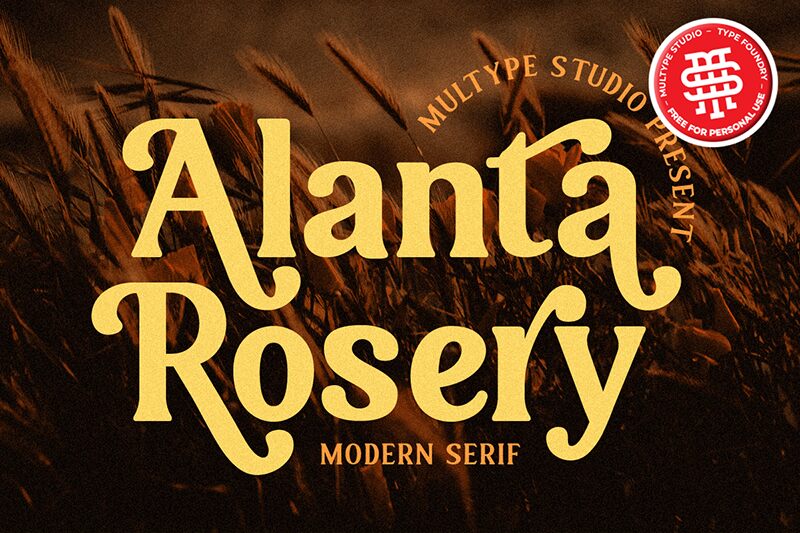
Alanta Rosery
Alanta Rosery, designed by Multype Studio, is a captivating semi-bold serif font that exudes elegance and modernity. With its crisp lines and delicate serifs, this typeface presents a blend of classic sophistication with contemporary finesse. The semi-bold weight provides a substantial presence on the page, making it perfect for headlines that demand attention without overwhelming the senses.
The aesthetic appeal of Alanta Rosery lies in its balanced proportions and subtle curves that create a harmonious visual rhythm. Its versatility shines through in various creative projects, from editorial design to branding and digital media. Whether you're crafting an upscale magazine layout or carving out an identity for a luxury brand, Alanta Rosery's stylish serifs and commanding presence offer designers a tool that is as functional as it is beautiful.
In summary, Alanta Rosery stands out as an alluring font choice for those seeking to infuse their work with both traditional charm and modern flair.